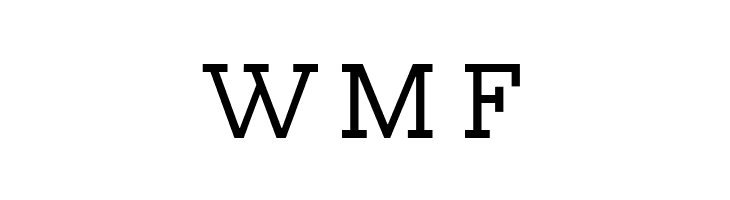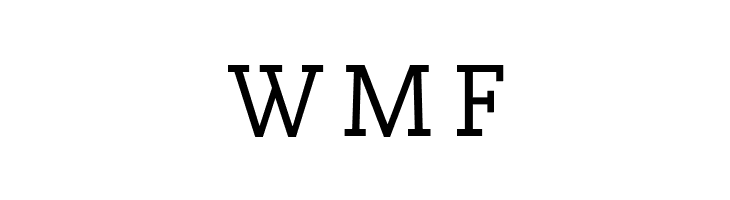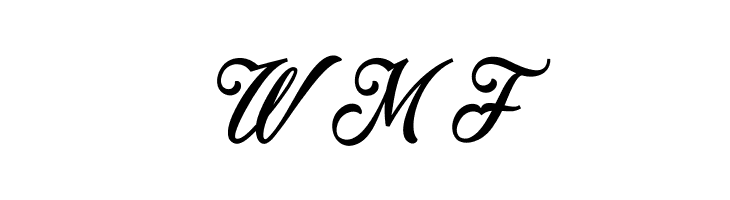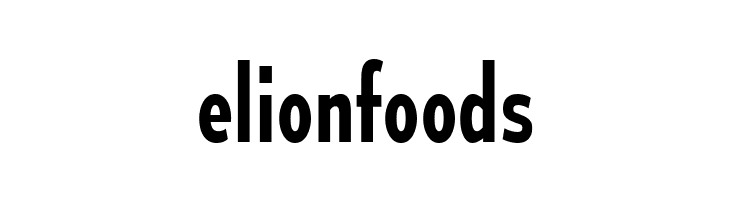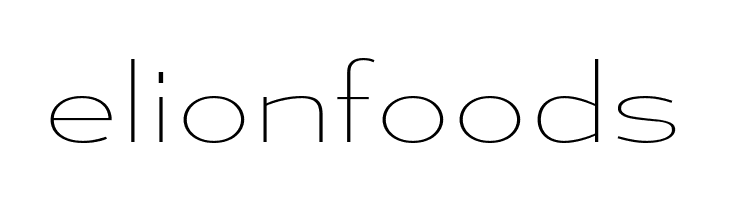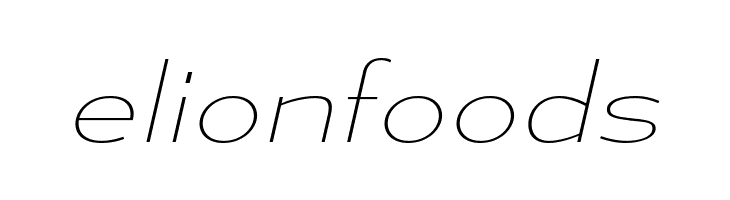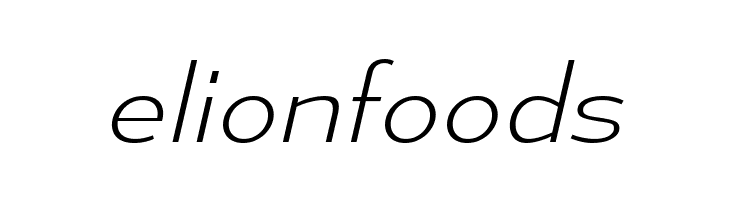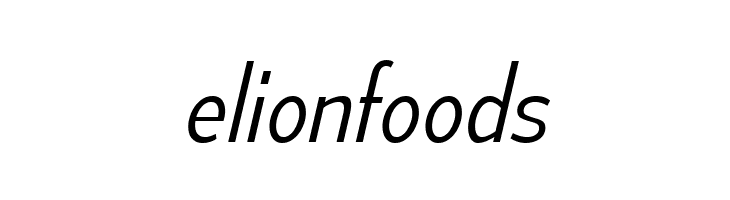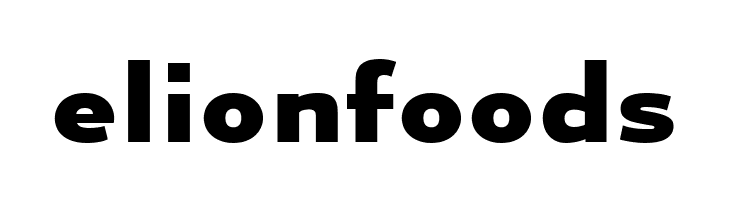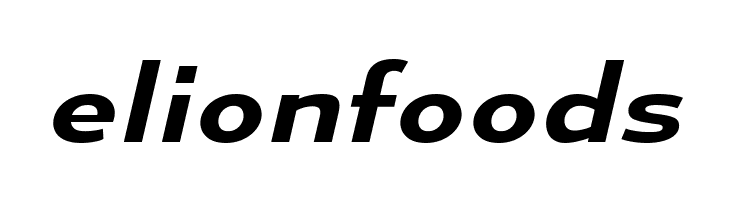
Bevan Font
A bold, robust slab serif font with strong, heavy strokes.
Magra Font
A modern, clean sans-serif font with excellent readability.
Mochary PERSONAL USE ONLY Font
An elegant and flowing script font with a classic and sophisticated style.
Slabo 27px Font
A modern serif font with clean lines and subtle serifs, offering a balanced and readable design.
Magra Bold Font
Slabo 13px Font
A modern serif font with clean lines and balanced proportions, ideal for readability.
MesmerizeUl-Regular Font
A clean, modern font with a geometric and minimalistic design.
MesmerizeExEb-Regular Font
A bold, modern font with geometric influences and strong, uniform strokes.
MesmerizeEb-Regular Font
A bold, geometric font with strong, uniform letterforms and high contrast.
MesmerizeRg-Bold Font
A bold, modern sans-serif font with clean, geometric lines.
MesmerizeRg-Regular Font
A modern, geometric sans-serif font with balanced proportions and a professional appearance.
MesmerizeSeRg-Bold Font
A bold, modern sans-serif font with geometric letterforms and consistent stroke widths.
Vastine Personal Use Font
A modern, geometric font with bold uppercase and rounded lowercase letters.
MesmerizeCdSb-Regular Font
A bold, modern font with clean lines and a strong presence.
MesmerizeSeEb-Regular Font
A bold, modern font with geometric shapes and clean lines.
MesmerizeScSb-Regular Font
Farro Bold Font
MesmerizeExBk-Regular Font
A modern, geometric sans-serif font with a clean and professional look.
MesmerizeBk-Regular Font
A modern sans-serif font with clean lines and balanced proportions.
MesmerizeScEb-Regular Font
A bold, geometric typeface with a modern and impactful style.
Farro Regular Font
A modern sans-serif font with clean lines and balanced proportions.
MesmerizeScBk-Regular Font